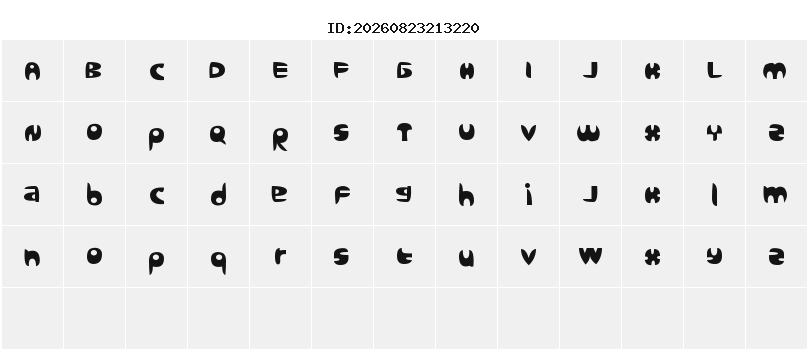
• Font Name: Sanz Query
• Designer: Ihsan Hasanudin
• Description: Made in Cianjur, 2014
About Sanz Query.ttf
Sanz Query.ttf is a modern, elegant sans-serif font designed for ultimate readability and visual harmony. Perfect for branding, headlines, web design, and print materials.